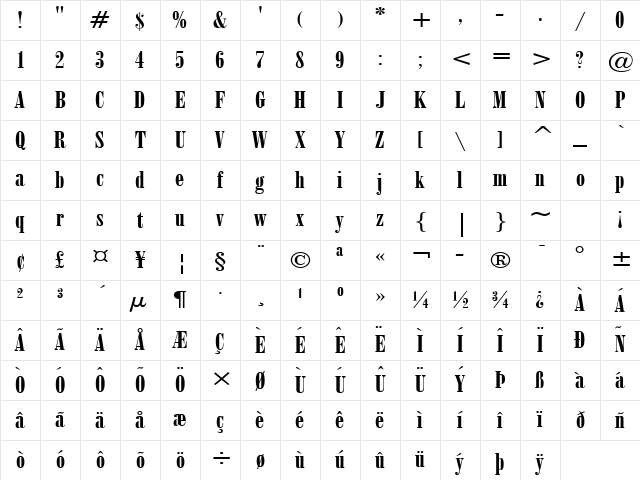
June 15 Wide Normal
Design Context for June 15 Wide
June 15 Wide is a composed and adaptable typeface that performs quietly and consistently across a wide range of design contexts.